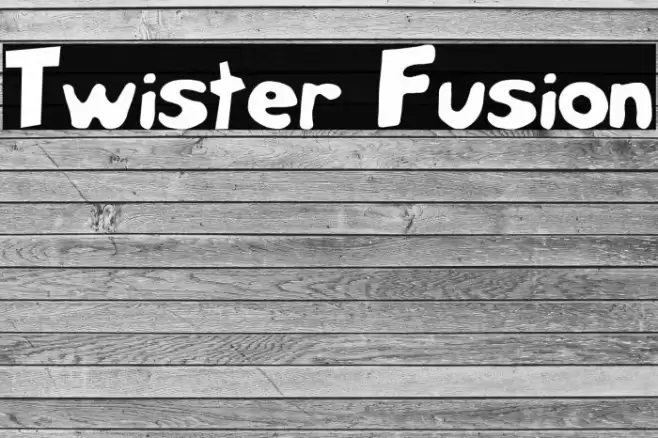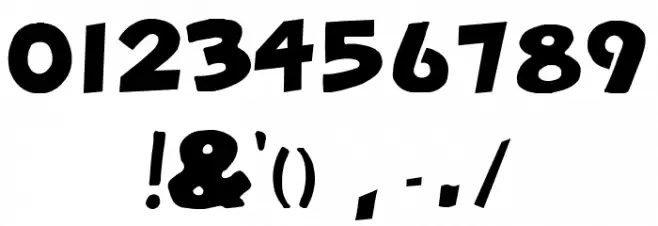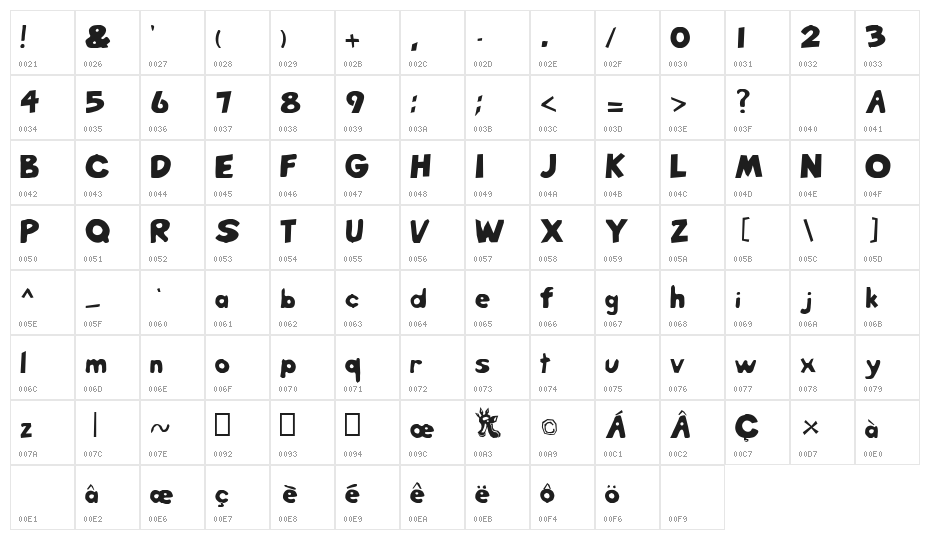
Twister Fusion Font
Twister Fusion Description
This font features a playful and dynamic style with bold, irregular strokes that give it a whimsical and energetic appearance. The characters have a hand-drawn quality, with varying thicknesses that add to its lively and informal feel. The uppercase letters are robust and slightly tilted, while the lowercase letters maintain a consistent, rounded form. Numbers and special characters follow the same playful design, making the font suitable for creative and fun projects. Its unique style is eye-catching and ideal for grabbing attention.
A playful, bold font with a hand-drawn, dynamic style from Comic fonts.
- Proposed Projects: Ideal for children's books, playful branding, party invitations, and creative posters.
- Overall Style: Playful, Energetic, Hand-drawn